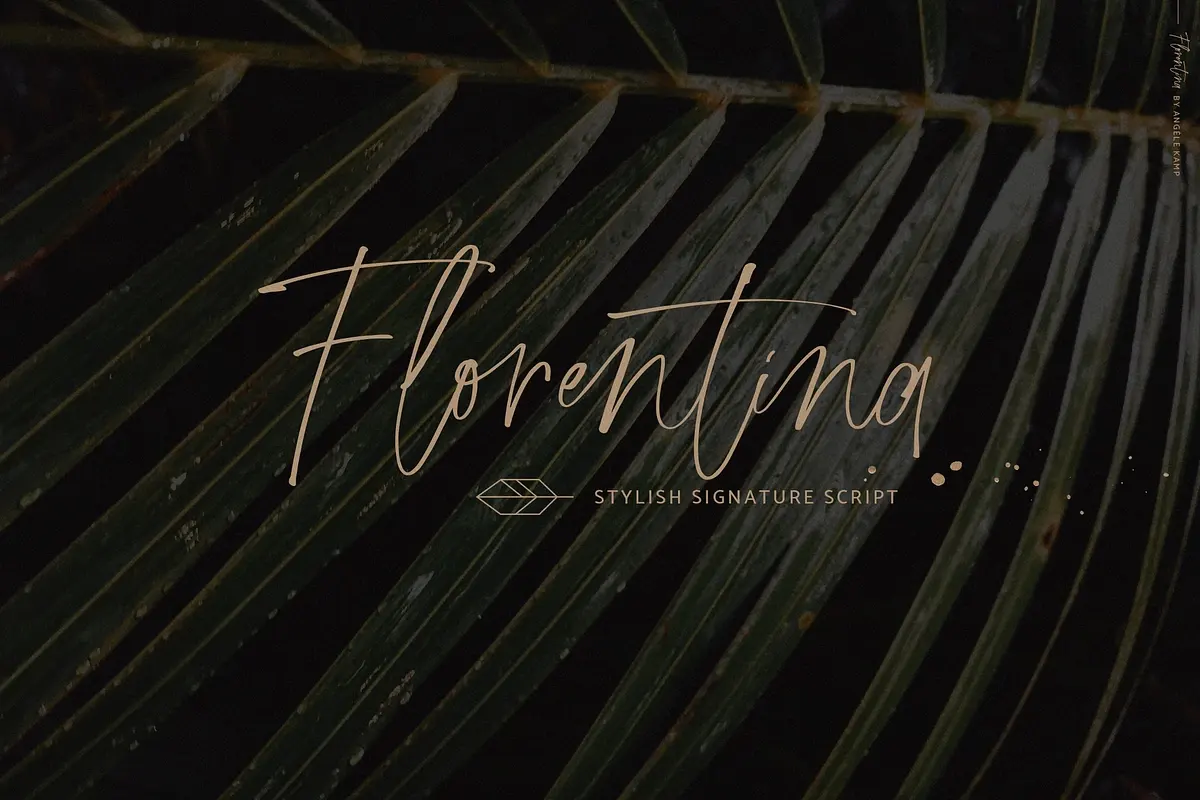
You must purchase this font for commercial use. However, you can download Florentina Stylish Script Font Free Download for testing purposes. Florentina is a sophisticated and elegant script font with flowing, delicate strokes and a stylish, handwritten feel. Perfect for creating luxurious branding, wedding invitations, logos, social media graphics, and high-end marketing materials, this font adds a refined, personal touch to any design.
With its smooth curves and beautiful letterforms, Florentina captures the essence of calligraphy, making it ideal for projects that need a blend of elegance and warmth. Whether you're designing a romantic wedding suite, an upscale brand identity, or a stylish event poster, Florentina brings beauty and character to your typography.